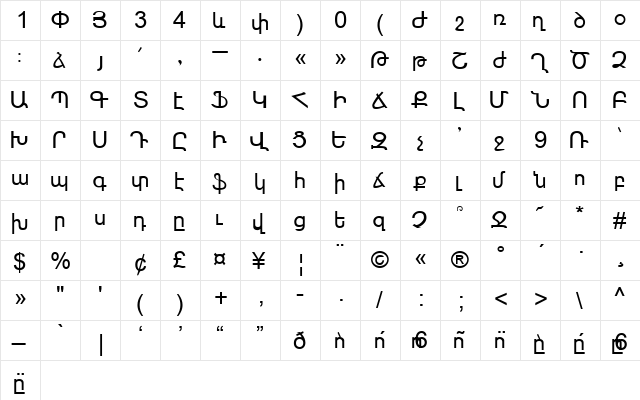
Sassoun Regular
Design Context for Sassoun Typeface
Sassoun takes a measured approach to typography — its balanced proportions and neutral character make it a reliable workhorse for both digital and print work.